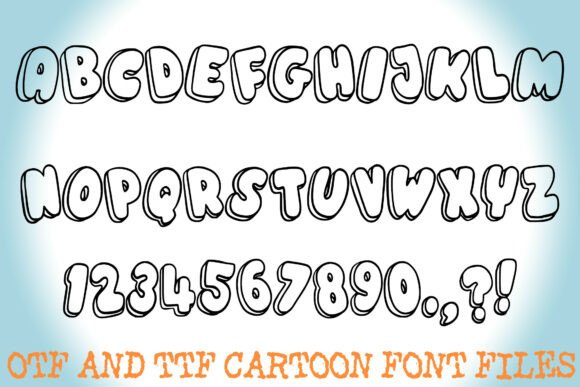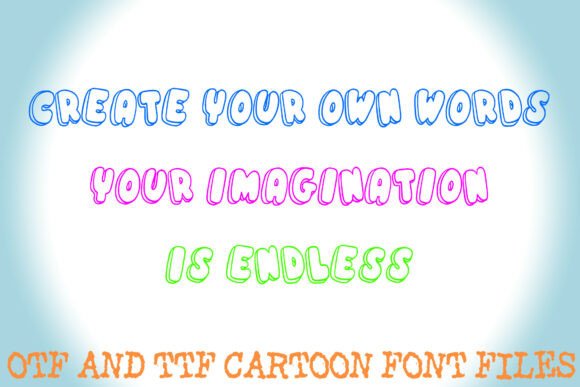
Bubble Pop Wonky Font: Add a Playful Touch to Your Designs
Are you looking for a font that can add a dash of fun and whimsy to your designs? Look no further than Bubble Pop Wonky, a vibrant and imaginative 3D cartoon alphabet font crafted by Squeeb Creative. This irresistible typeface is perfect for projects that need a playful touch, making it an ideal choice for designers and crafters who want to create engaging and eye-catching content.
The Essence of Childhood Fun
Bubble Pop Wonky captures the essence of childhood fun with its bubbly, wonky, and hand-drawn style. The font features a unique, multi-layered 3D effect that gives every letter a mesmerizing depth and a candy-like appearance. This playful design makes it perfect for children’s book covers, educational materials, fun branding, party and birthday invitations, nursery prints, t-shirt design, and whimsical digital art.
Key Features of Bubble Pop Wonky
- Wildly Imaginative Design: Bubble Pop Wonky boasts a vibrant and imaginative design that is sure to grab attention.
- Hand-Drawn Style: The font features a charming hand-drawn style that gives it a unique and personalized touch.
- 3D Cartoon Alphabet: The font is a 3D cartoon alphabet, making it perfect for projects that need a playful and whimsical touch.
- Multi-Layered Effect: The font features a multi-layered 3D effect that gives every letter a mesmerizing depth and a candy-like appearance.
- Capital Letters in Black Outline: The font features capital letters in black outline, making it perfect for use on dark or busy backgrounds.
- Numbers and Punctuation: The font includes numbers and punctuation marks, making it a comprehensive and versatile typeface.
Uses for Bubble Pop Wonky
Bubble Pop Wonky is a versatile font that can be used for a wide range of projects, including:
- Children’s Book Covers: The font’s playful and whimsical design makes it perfect for children’s book covers.
- Educational Materials: The font’s fun and engaging design makes it ideal for educational materials, such as worksheets and activity sheets.
- Fun Branding: The font’s playful design makes it perfect for fun branding, such as logos and packaging.
- Party and Birthday Invitations: The font’s whimsical design makes it ideal for party and birthday invitations.
- Nursery Prints: The font’s playful design makes it perfect for nursery prints and wall art.
- T-Shirt Design: The font’s fun and engaging design makes it ideal for t-shirt design.
- Whimsical Digital Art: The font’s playful design makes it perfect for whimsical digital art, such as illustrations and graphics.
Why Choose Bubble Pop Wonky?
There are many reasons why Bubble Pop Wonky is the perfect choice for designers and crafters who want to add a playful touch to their designs. Here are just a few:
- Unique Design: The font’s unique design makes it stand out from other fonts, ensuring that your designs will be noticed.
- Versatile: The font is versatile and can be used for a wide range of projects, making it a great addition to any design library.
Bubble Pop Wonky is a wildly imaginative and vibrant 3D cartoon alphabet font that is perfect for designers and crafters who want to add a playful touch to their designs. With its unique design, easy-to-use files, and versatility, this font is sure to become a favorite in your design library. So why wait? Dive into the fun with Bubble Pop Wonky and start creating engaging and eye-catching designs today!